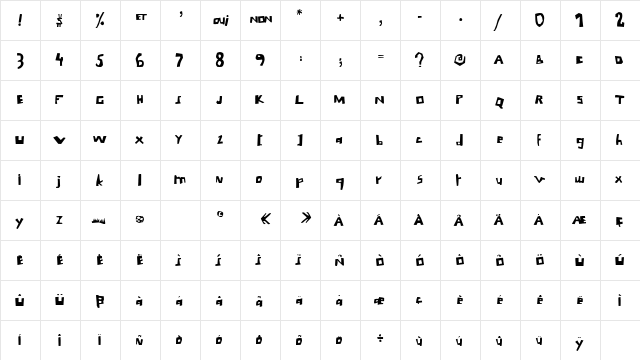
Leclaude Fran篩s Font Preview
Leclaude Fran篩s
Leclaude Fran篩s Font Details
| Style | Fran篩s |
Design Context for Leclaude Typeface
Leclaude is a composed and adaptable typeface that performs quietly and consistently across a wide range of design contexts.